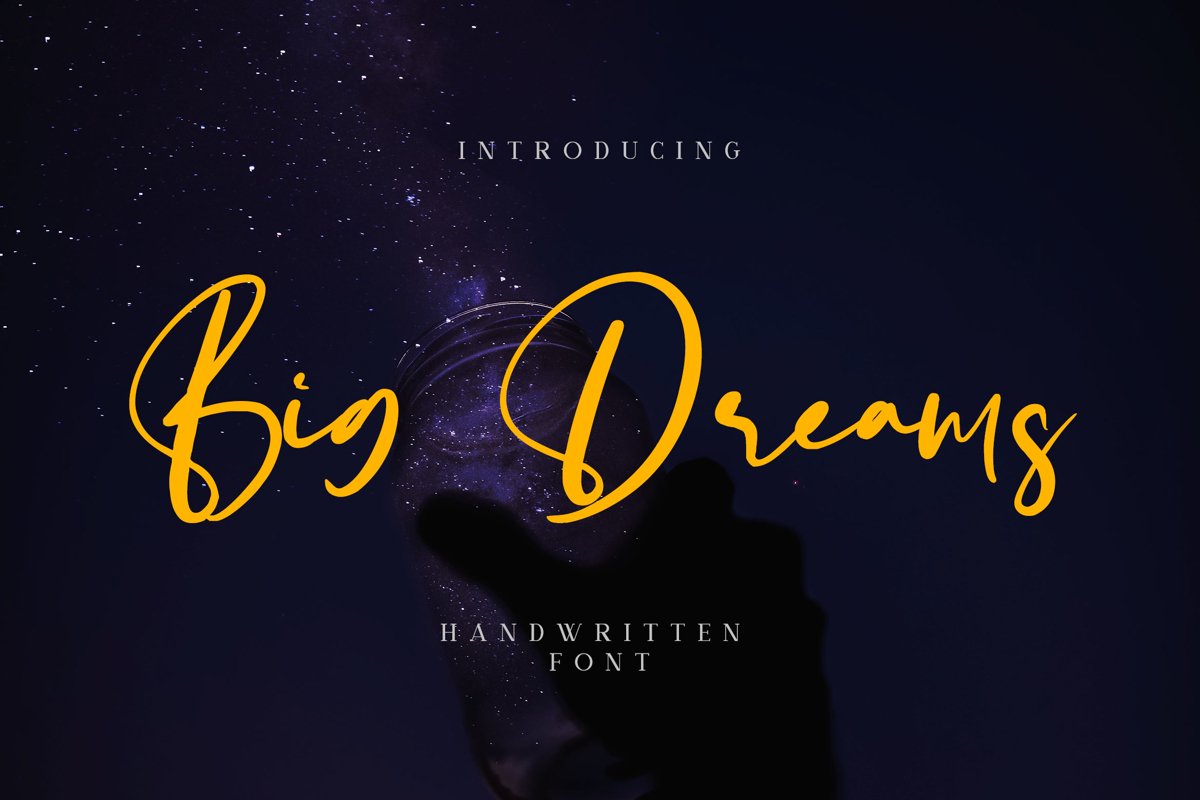
Big Dreams - Handwritten Font
Big Dreams
Big Dreams font is handwritten script font. It has casual, classy, and beauty. It’s a great font for fashion,
apparel projects, signature, album cover, logo, branding, magazine, social media, & advertisements,
but also works great for other projects.
- The perfect font choice for powerful projects - watermarks, signatures, photography, logos, business cards, quotes,
album covers.